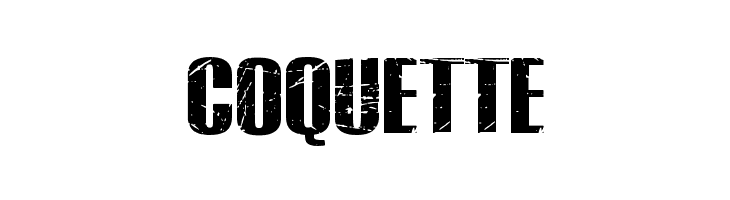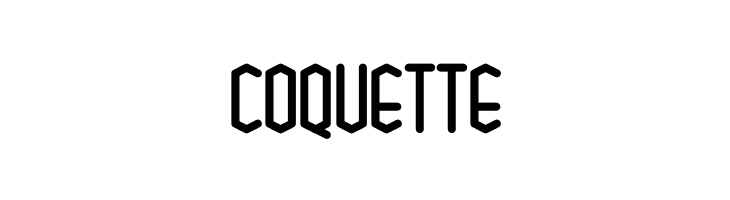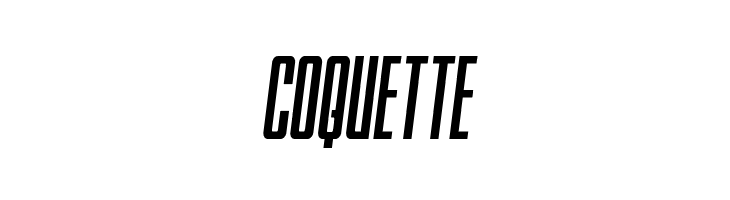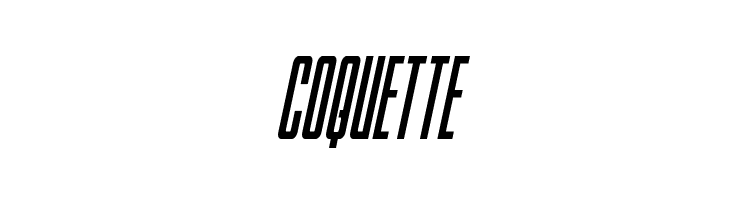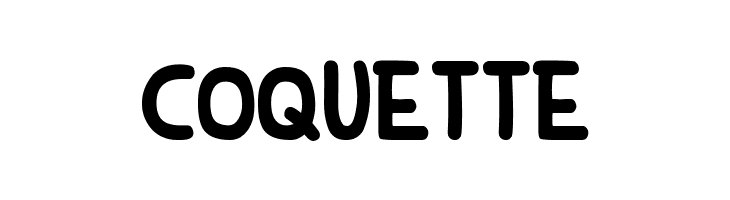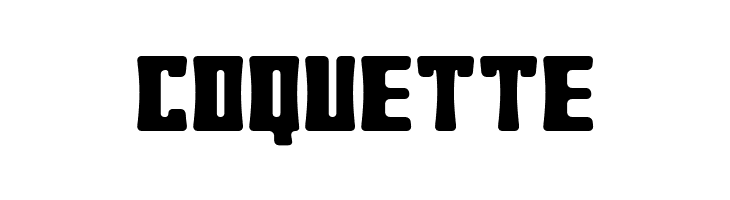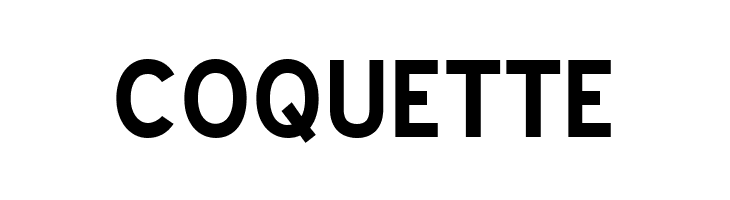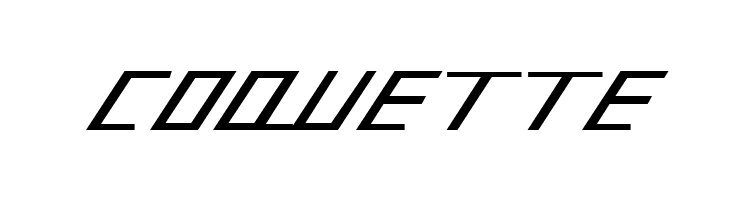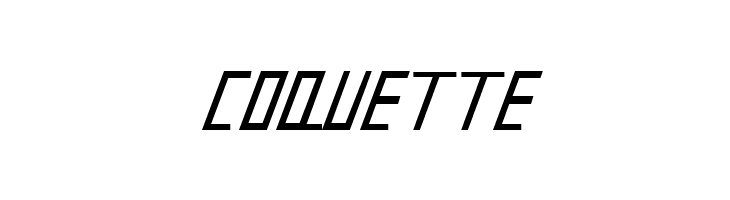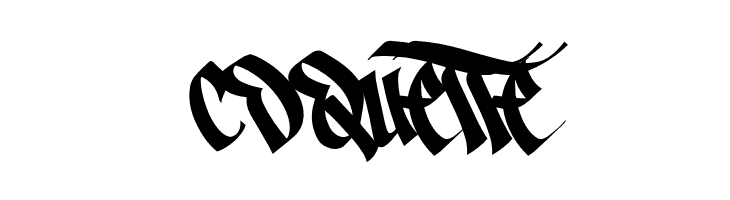
( Fonts by a Neale Davidson - www.pixelsagas.com. Personal-use only. For commercial use please contact owner. ) A bold, modern font with geometric and rounded elements. Download 257 Downloads@WebFont
( Fonts by a Neale Davidson - www.pixelsagas.com. Personal-use only. For commercial use please contact owner. ) A bold, italic font with a modern and dynamic style. Download 84 Downloads@WebFont
( Fonts by Daniel Zadorozny - www.iconian.com - Personal-use only. For commercial use please contact owner. ) A bold, condensed font with tall, narrow characters for a strong impact. Download 173 Downloads@WebFont
( Fonts by Daniel Zadorozny - www.iconian.com - Personal-use only. For commercial use please contact owner. ) A bold, expanded font with a geometric and modern design. Download 335 Downloads@WebFont
( Fonts by Daniel Zadorozny - www.iconian.com - Personal-use only. For commercial use please contact owner. ) A bold, expanded, and italic font with a modern, dynamic style. Download 71 Downloads@WebFont
( Fonts by Daniel Zadorozny - www.iconian.com - Personal-use only. For commercial use please contact owner. ) A bold, expanded, semi-italic font with a modern and dynamic style. Download 74 Downloads@WebFont
( Fonts by Daniel Zadorozny - www.iconian.com - Personal-use only. For commercial use please contact owner. ) A bold, italicized, and condensed font with a dynamic and modern style. Download 57 Downloads@WebFont
( Fonts by Daniel Zadorozny - www.iconian.com - Personal-use only. For commercial use please contact owner. ) A bold, semi-italic font with a condensed, dynamic style. Download 64 Downloads@WebFont
( Fonts by Edric Studio - Personal-use only. For commercial use please contact owner. ) A bold, modern font with subtle serifs and a touch of elegance. Download 255 Downloads@WebFont
( Fonts by Daniel Zadorozny - www.iconian.com - Free for personal use ) A modern, angular font with a bold and dynamic slant. Download 178 Downloads@WebFont
( Fonts by Daniel Zadorozny - www.iconian.com - Free for personal use ) A bold, condensed, and angular font with a modern, geometric style. Download 160 Downloads@WebFont
( Fonts by Daniel Zadorozny - www.iconian.com - Free for personal use ) A bold, expanded font with a geometric, angular design and a futuristic feel. Download 146 Downloads@WebFont
( Fonts by www.studiotypo.com - Personal-use only. For commercial use please contact owner. ) A bold, modern font with strong, uniform strokes. Download 1087 Downloads@WebFont
( Fonts by www.studiotypo.com - Personal-use only. For commercial use please contact owner. ) A bold, italic font with a modern and dynamic style. Download 1205 Downloads@WebFont
( Fonts by www.typodermicfonts.com - Ray Larabie ) A bold, modern sans-serif font with clean lines and strong presence. Download 1612 Downloads@WebFont
( Fonts by Typodermic Fonts - Raymond Larabie - Personal-use only. For commercial use please contact owner. ) A bold, modern sans-serif font with clean lines and consistent stroke width. Download 39 Downloads@WebFont
( Fonts by www.selawetype.com - Personal-use only. FOR DONATION https://www.paypal.me/selawe . For commercial use please contact owner. ) A bold, geometric font with a modern, industrial style. Download 76 Downloads@WebFont
( Fonts by M ) Bold, graffiti-inspired script with sharp angles and heavy slant. Download 42 Downloads@WebFont
( Noschey! ) A bold, playful handwritten font with irregular, wavy lines and a friendly appearance. Download 206 Downloads@WebFont
( Fonts by Jean-Baptiste Morizot. Personal-use only. For commercial use please contact owner. ) A bold serif font with strong strokes and sharp serifs, offering a classic yet modern look. Download 1933 Downloads@WebFont
( Fonts by Jean-Baptiste Morizot. Personal-use only. For commercial use please contact owner. ) A bold, italic serif font with sharp serifs and high contrast strokes. Download 595 Downloads@WebFont
( Fonts by Jean-Baptiste Morizot. Personal-use only. For commercial use please contact owner. ) A bold serif font with strong strokes and sharp serifs, exuding authority and sophistication. Download 830 Downloads@WebFont
( Fonts by Jean-Baptiste Morizot. Personal-use only. For commercial use please contact owner. ) A bold, italic serif font with high contrast and dynamic style. Download 450 Downloads@WebFont
( Banphot Nuchleang - bond.in.th/ ) A bold, pixelated font with a retro digital aesthetic. Download 90 Downloads@WebFont
( Font by Ben Nathan - www.hafontia.com ) A bold, rounded font with a playful and friendly style. Download 2321 Downloads@WebFont
( Fonts by Ben Nathan ) A rugged, distressed font with a bold, textured appearance. Download 397 Downloads@WebFont